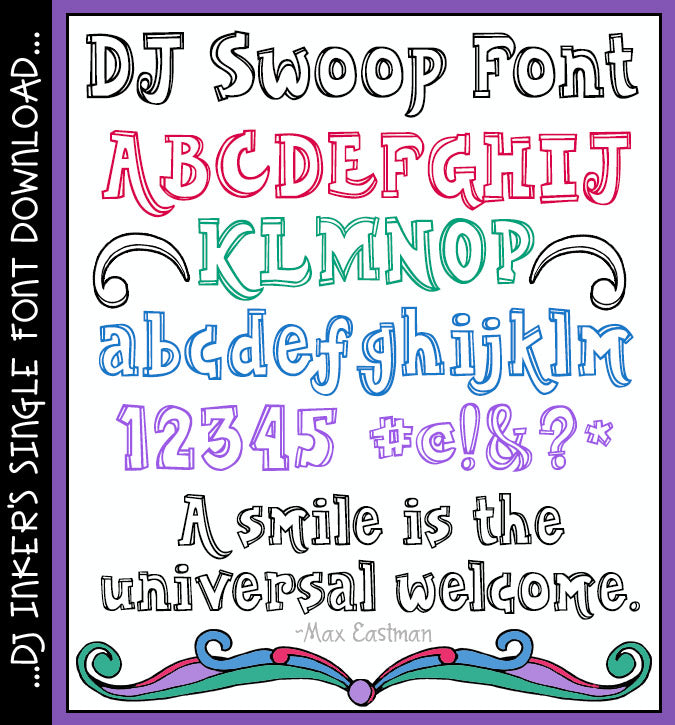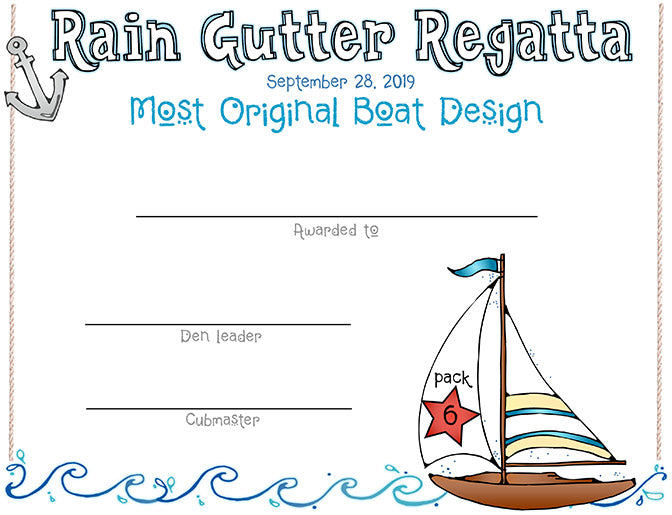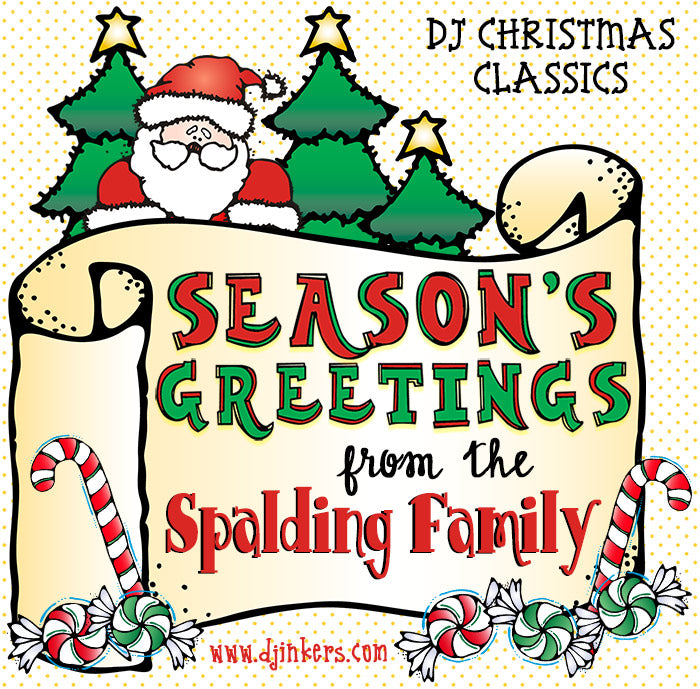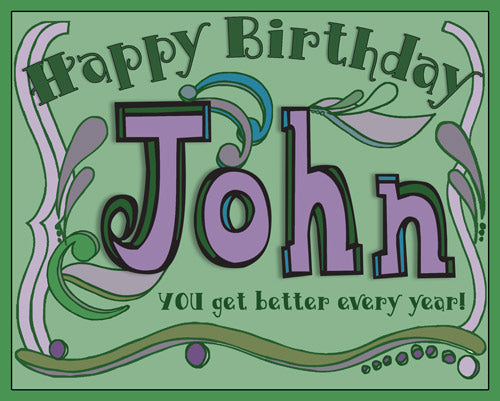
DJ Swoop Font Download
Hooray! This fabulous font is here to swoop in and add a smile to
your projects. Great for headlines, posters, nameplates, scrapbooks, crafts
and anything artsy! 'DJ Swoop' works best in larger sizes and strong colors.